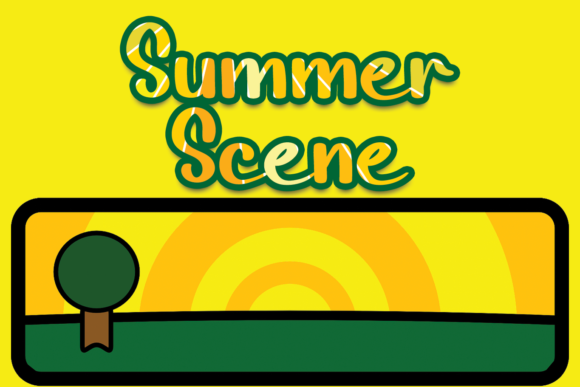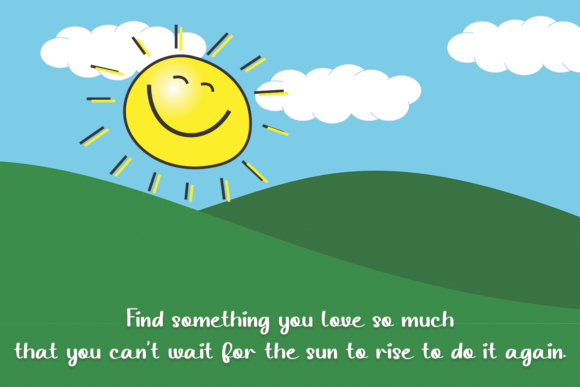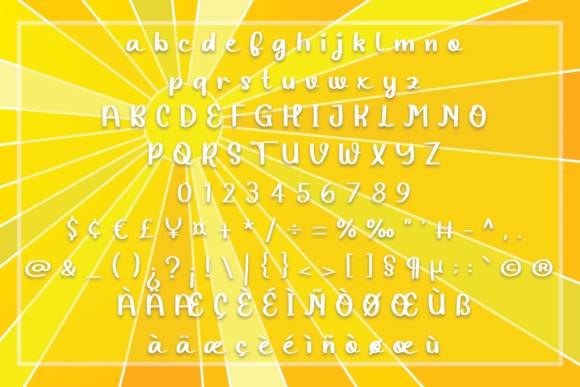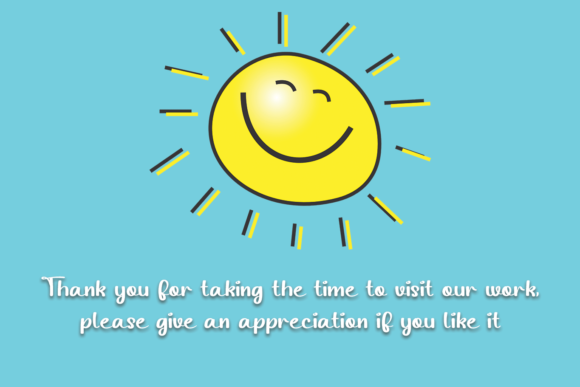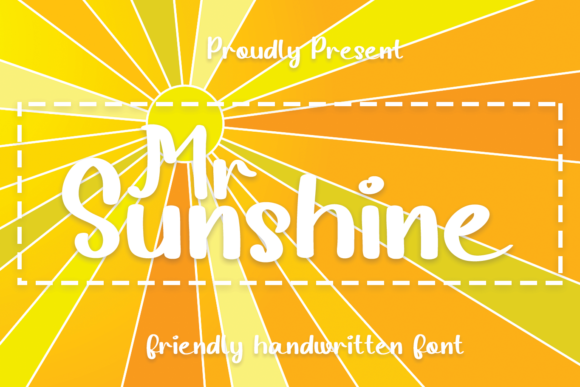
The Sunshine in Your Designs: A Comprehensive Guide to Mr Sunshine Font
Have you ever been in the middle of a design project, and suddenly, you’re stuck on finding the perfect font? I recall a recent experience where I was working on a children’s book design, and my client specifically asked for a font that was not only cute and friendly but also fun and engaging. After scouring through numerous font libraries, I stumbled upon the delightful Mr Sunshine font. It was love at first sight! ✨
In this article, we’ll dive into the world of Mr Sunshine, a beautiful handwritten font perfect for children-themed designs. We’ll explore its features, how to use it on various platforms, similar fonts, and more.
An Honest Review of Mr Sunshine Font
What I Love About Mr Sunshine
- ✨ Cute and Friendly: Mr Sunshine exudes warmth and friendliness, making it perfect for designs aimed at children.
- ✅ Easy to Read: The font is clear and legible, even at smaller sizes, ensuring your message gets across effectively.
- 🎨 Versatile: It pairs well with a variety of colors, especially bright ones, adding a pop of fun to your designs.
While Mr Sunshine is a wonderful font, there are a few things to keep in mind:
- ⚠️ Limited Use in Formal Contexts: Due to its playful nature, Mr Sunshine might not be the best choice for formal or professional designs.
- 🤔 Requires Thoughtful Pairing: To maximize its impact, Mr Sunshine needs to be paired with complementary fonts or design elements carefully.
The Designer Inspiration Behind Mr Sunshine
While the actual origins of Mr Sunshine are not well-documented, it’s easy to imagine a designer inspired by the joy and simplicity of childhood creating this font. Perhaps they wanted to bottle up the essence of sunny days, laughter, and playful moments into a typeface that’s both fun and accessible.
Q: Is Mr Sunshine suitable for adult audiences?
A: While Mr Sunshine is primarily designed with children in mind, its friendly and approachable nature can make it suitable for adult designs that require a playful touch.
Q: Does Mr Sunshine support OpenType features?
A: Yes, Mr Sunshine supports OpenType features, allowing for a range of stylistic alternates and glyphs to enhance your designs.